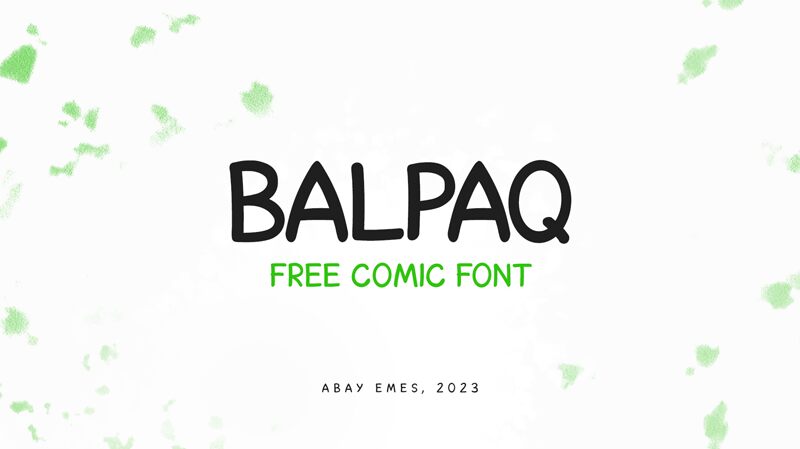
Balpaq Normal
Balpaq font by Abay Emes is a free comic display font designed with modern organic shapes creating an approachable feel. Its hand-drawn rendering has a friendly appearance with a playful and cheerful vibe. The font is perfect for use in lots of platform types thanks to its versatility.
Balpaq by Abay Emes